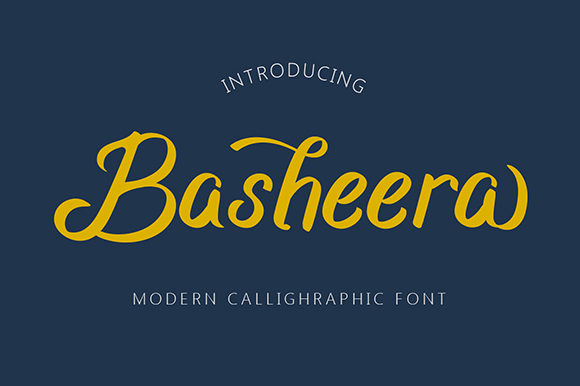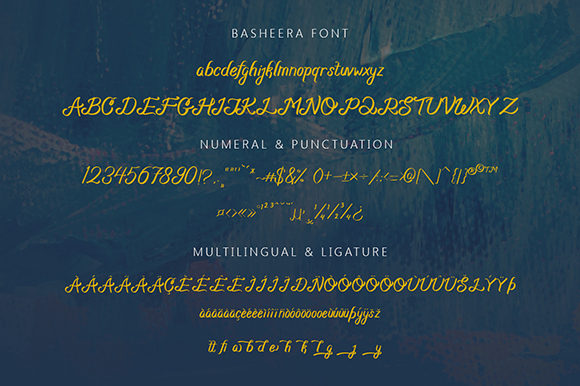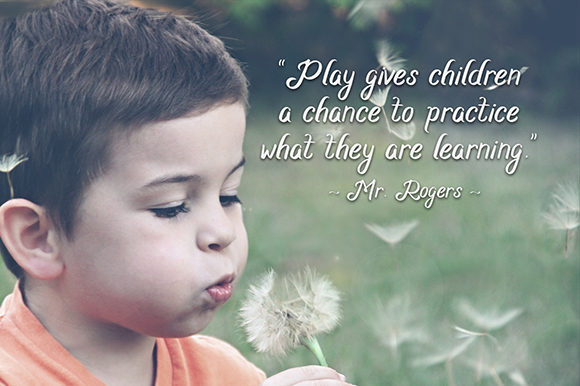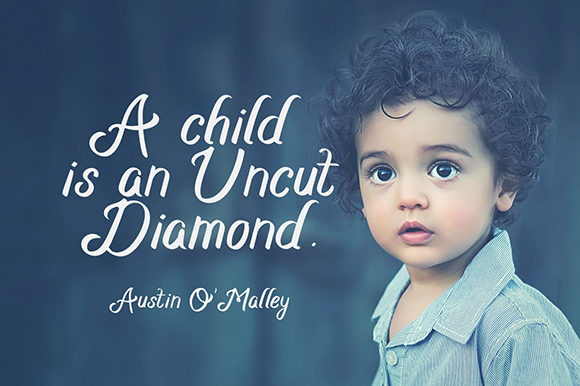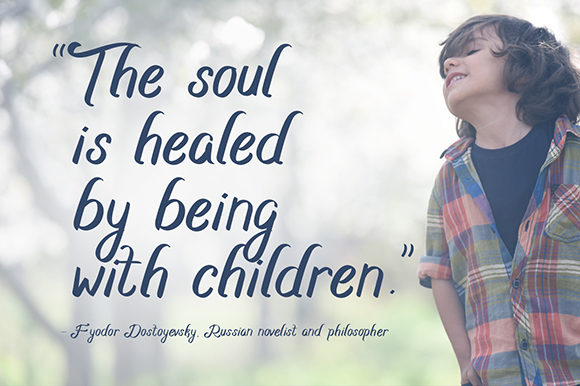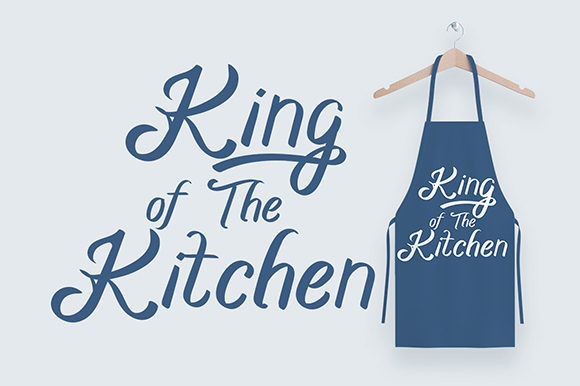
Basheera Font
About Basheera Font
Basheera is an exquisite handwritten font, masterfully designed to become a true favorite. It maintains its classy calligraphic influences while feeling contemporary and fresh. Fall in love with it and bring your projects to the highest levels!